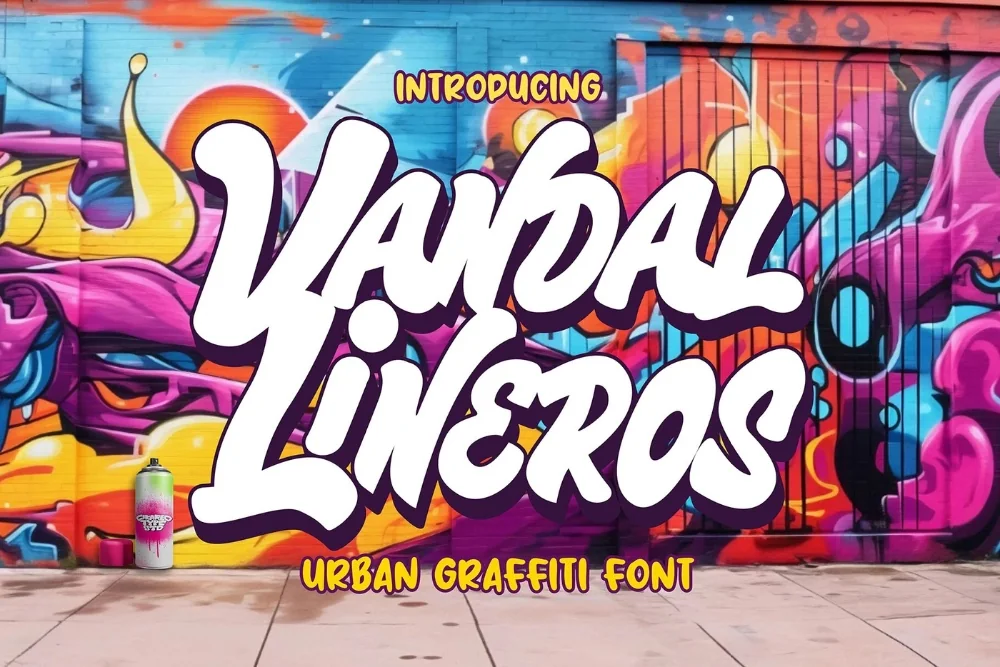
Line Vandal Outline Font
This graffiti outline alphabet was picked for the collection because it solves a problem the obvious choices do not. A thinner, sharper outline with angular corners and long exits. Reads as technical and modern rather than playful.
The stroke is narrow and consistent, and the shapes are more angular than a rounded outline face, with straight cuts where curves would normally sit. It stays crisp when scaled up to poster size.
Suits technical-looking merch, line-art tattoos, laser-cut and single-line plotter projects.
Worth knowing: tighten the letter spacing well past what feels comfortable. Painted lettering is set tight, and default digital spacing makes this genre look oddly polite.